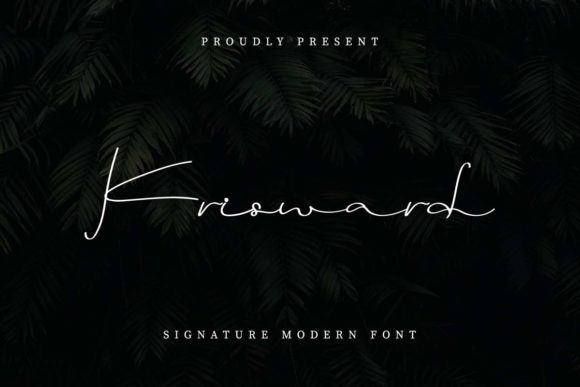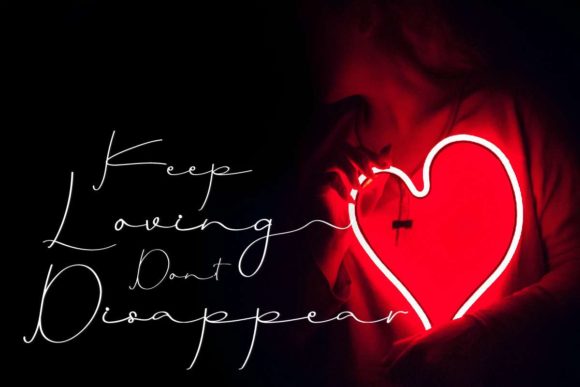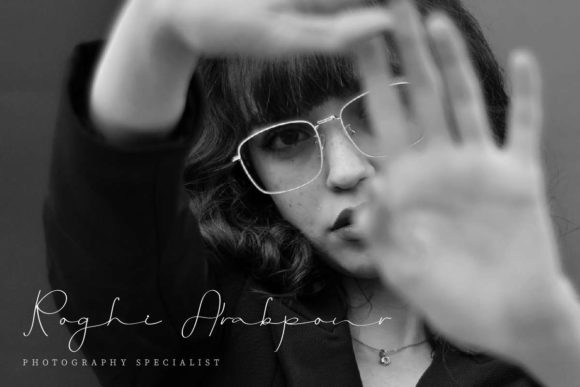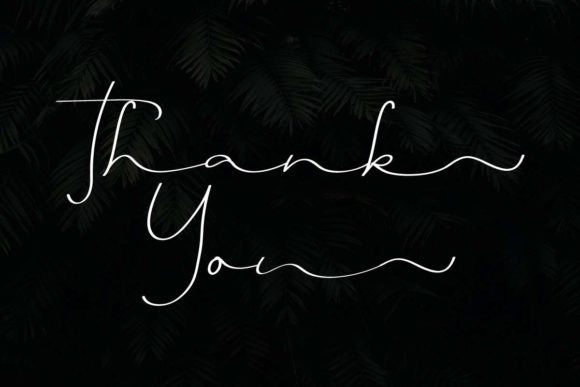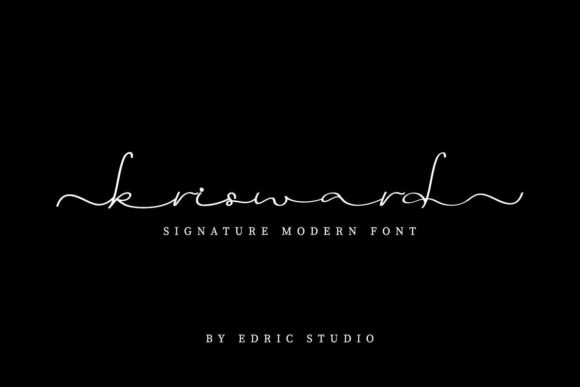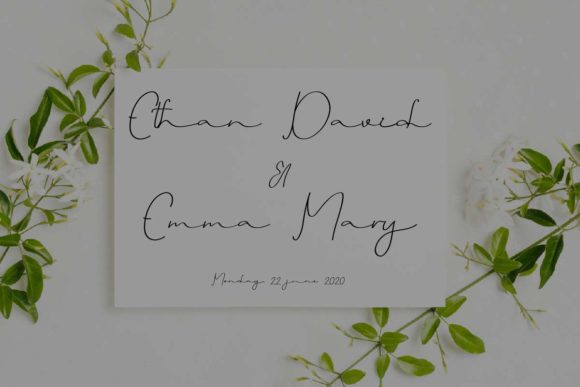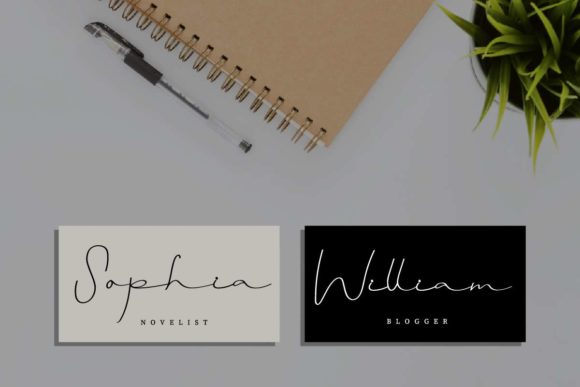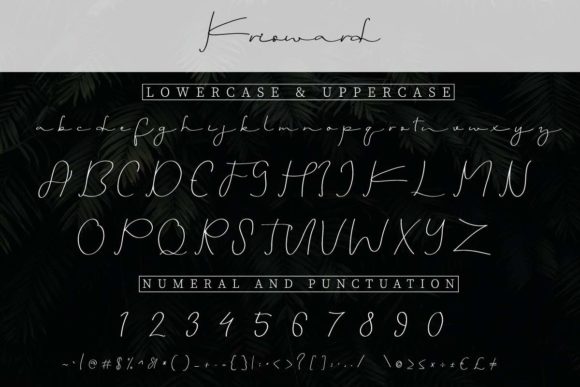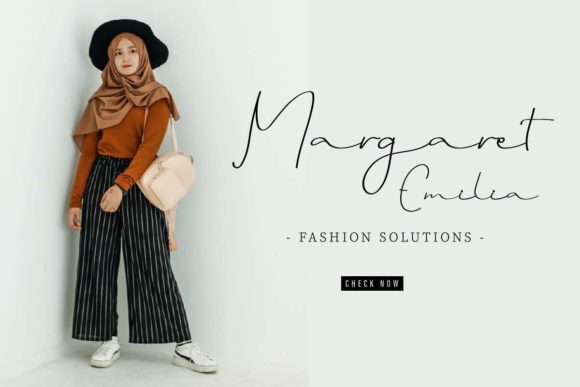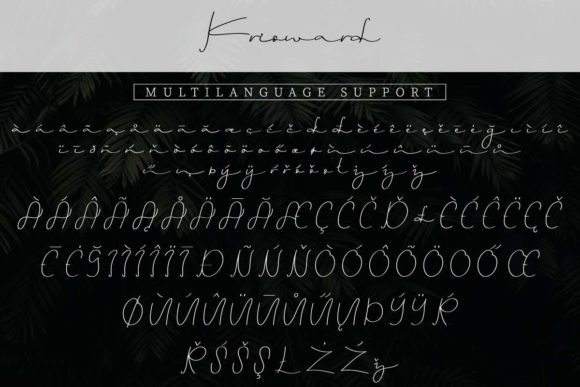
Krisward Font
About Krisward Font
Krisward sounds like a delightful and versatile handwritten font that can add a relaxed and flowing touch to a wide range of design projects. With its adaptability and charm, it offers endless creative possibilities for various applications. Here are some ideas on how to use Krisward font to create stunning designs:
1. Wedding Invitations: Design elegant and romantic wedding invitations using Krisward font to add a touch of sophistication and warmth.
2. Stationery Art: Create beautiful and personalized stationary art pieces using Krisward font for a unique and artistic touch.
3. Social Media Posts: Use Krisward font in social media graphics to make your posts stand out and capture your audience’s attention.
4. Quote Designs: Design inspiring quote graphics using Krisward font to share meaningful messages with a stylish and heartfelt touch.
5. Greeting Cards: Incorporate Krisward font in greeting card designs for various occasions, such as birthdays, thank you cards, and congratulations.
6. Blog and Website Headers: Use Krisward font in blog and website headers to create a welcoming and visually appealing introduction.
7. Logo Design: Incorporate Krisward font in logo designs for businesses or brands seeking a friendly and approachable identity.
8. Art Prints: Create beautiful art prints featuring illustrations or photographs with Krisward font for a relaxed and artistic vibe.
9. Product Packaging: Use Krisward font in product packaging to add a personal and handmade touch to your products.
10. Event Invitations: Design eye-catching event invitations using Krisward font to set the tone for special gatherings and celebrations.
11. Menu Cards: Incorporate Krisward font in menu card designs to create a charming and inviting atmosphere for restaurants or cafes.
12. Personalized Gifts: Use Krisward font to add custom messages to personalized gifts, making them extra special and thoughtful.
13. Blog Graphics: Create eye-catching blog graphics using Krisward font to enhance the visual appeal of your blog posts.
14. Book Covers: Use Krisward font in book cover designs for a relaxed and inviting look that appeals to readers.
15. Magazine Layouts: Incorporate Krisward font in magazine layouts for articles or sections that require a laid-back and friendly vibe.
16. Beauty and Wellness Branding: Use Krisward font in branding for beauty and wellness-related businesses to evoke a sense of relaxation and comfort.
17. Packaging for Handmade Products: Design packaging for handmade products using Krisward font to emphasize the artisanal and crafted aspect.
18. Inspirational Graphics: Create inspirational graphics and posters using Krisward font to uplift and inspire your audience.
19. DIY Projects: Use Krisward font in various DIY projects, such as home decor or handmade crafts, for a personal and charming touch.
20. Bridal Shower Invitations: Design charming bridal shower invitations using Krisward font to add a touch of elegance and informality.
In summary, Krisward is a relaxed and flowing handwritten font that can infuse a wide array of design projects with a versatile and inviting style. From wedding invitations to social media posts, from blog graphics to product packaging, Krisward font can bring an approachable and friendly vibe to your creations. Its adaptability makes it an excellent choice for adding a personal and artistic touch to your designs, making them more memorable and captivating. Fall in love with Krisward font and explore the endless possibilities it offers to create gorgeous and meaningful designs!